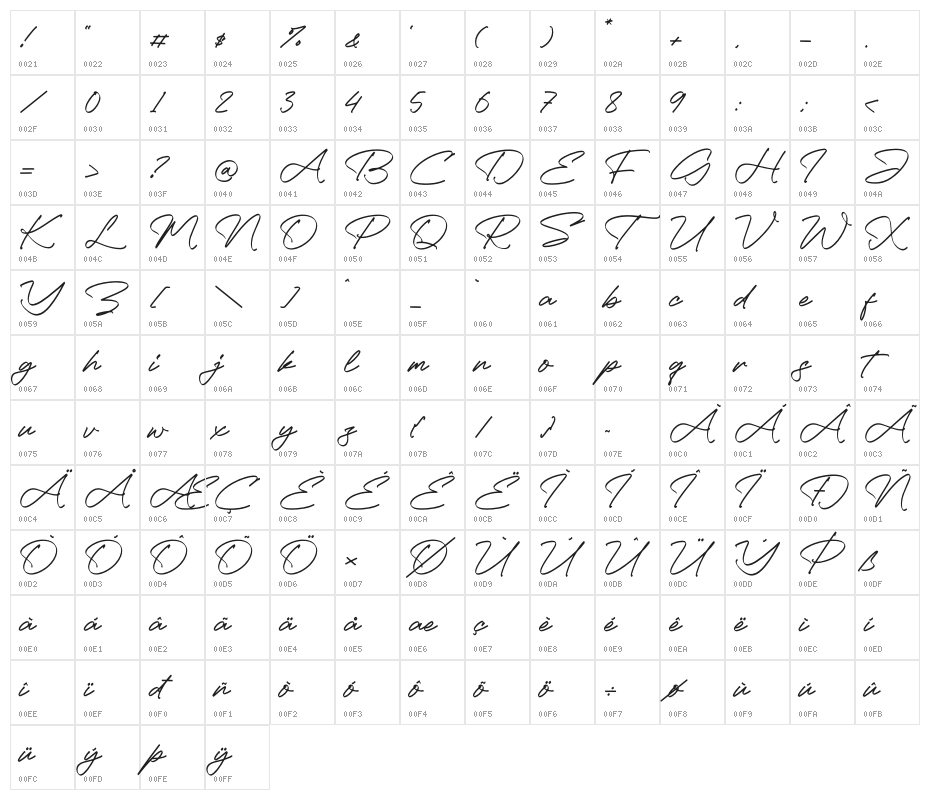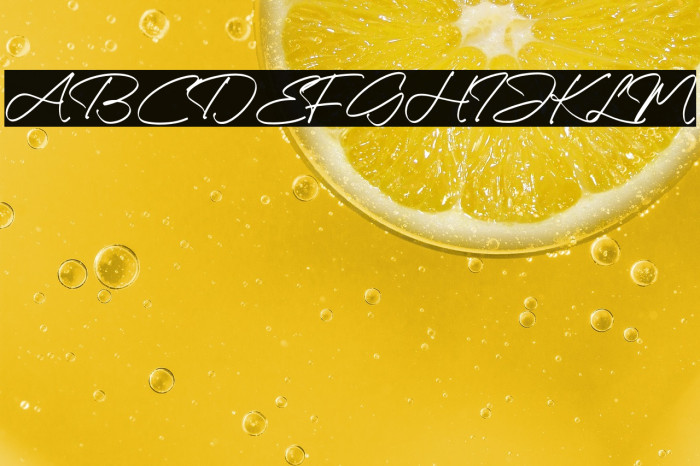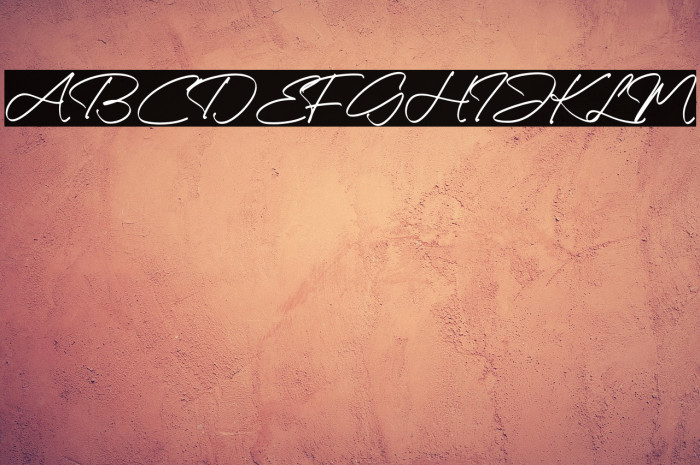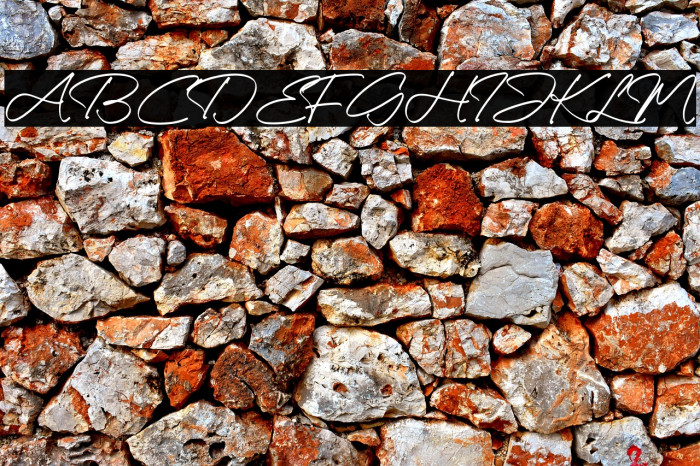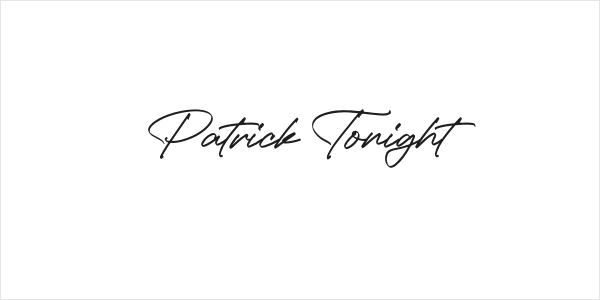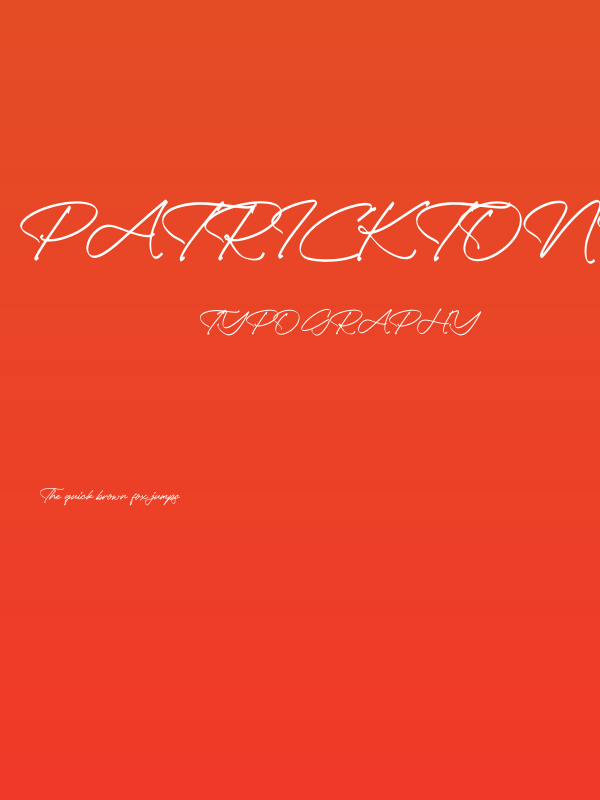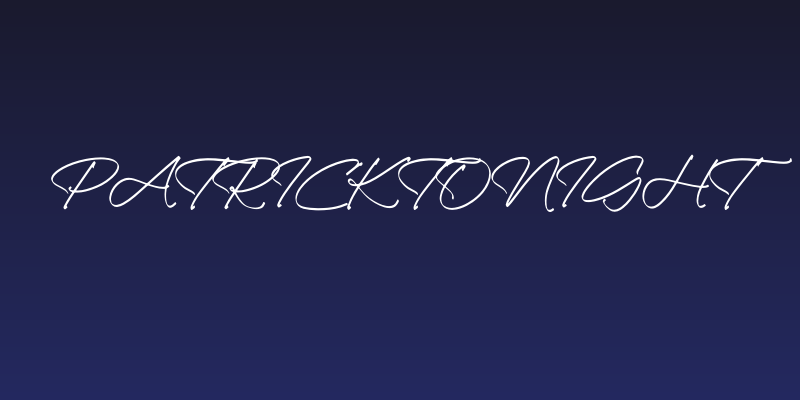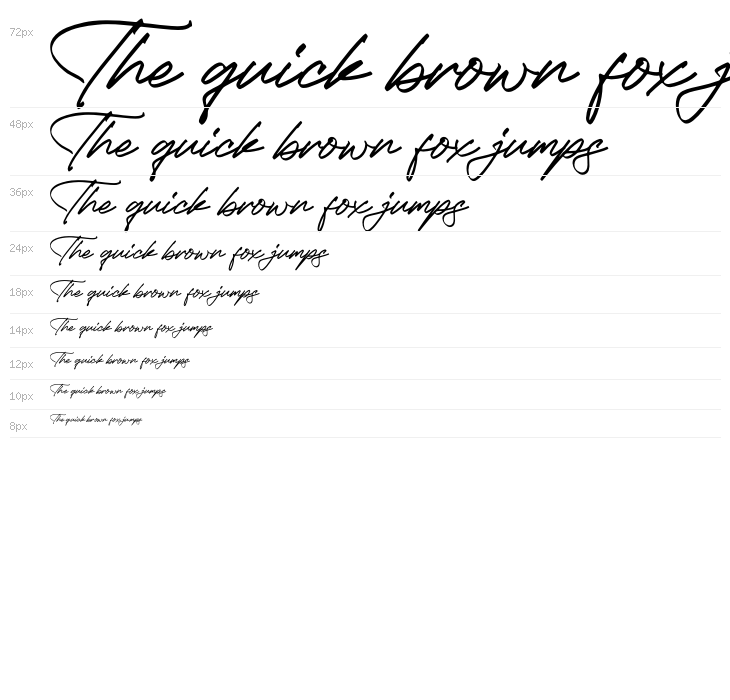
Patrick Tonight Font
Patrick Tonight Description
A flowing, connected script font that mimics natural handwriting with elegant, slightly irregular strokes and a casual yet sophisticated appearance. The uppercase and lowercase letters are both highly legible, with moderate slant and variable stroke thickness.
Overall StyleDecorative, Casual, Elegant
Use CaseLogos, Headlines, Short text, Invitations
Proposed ProjectsInvitations, greeting cards, personal branding, quotes, social media graphics.